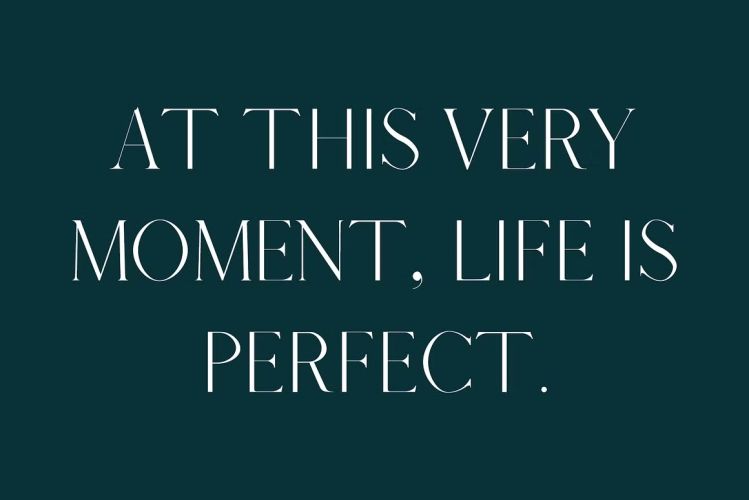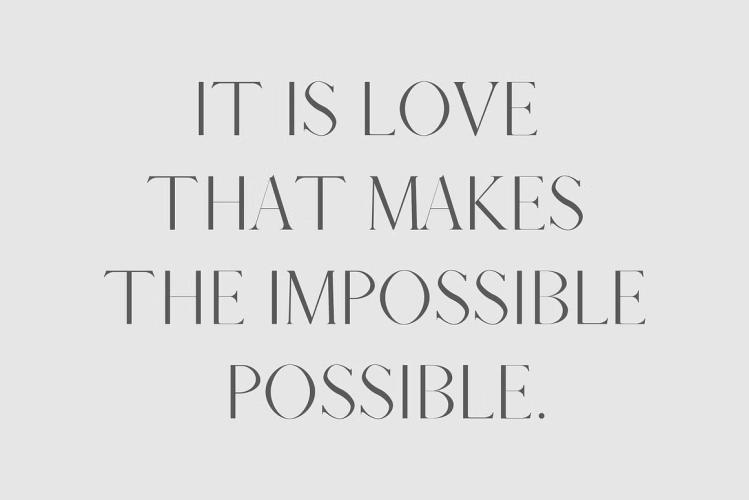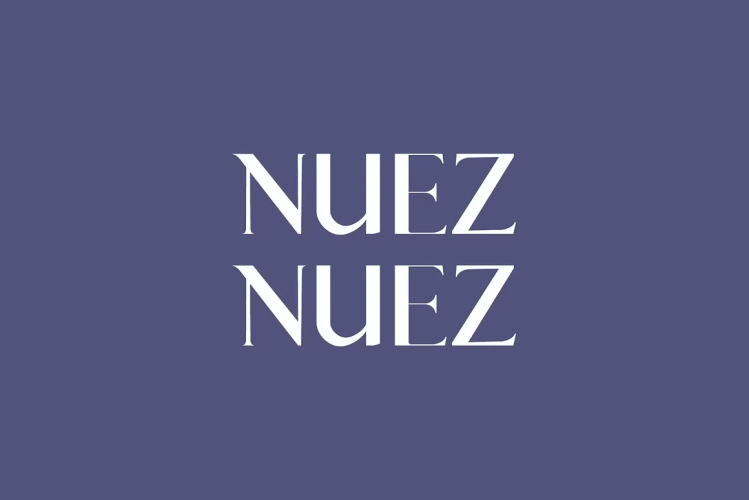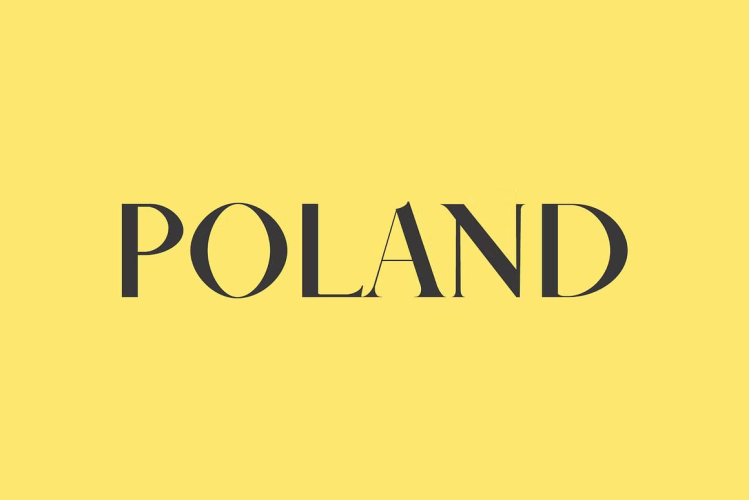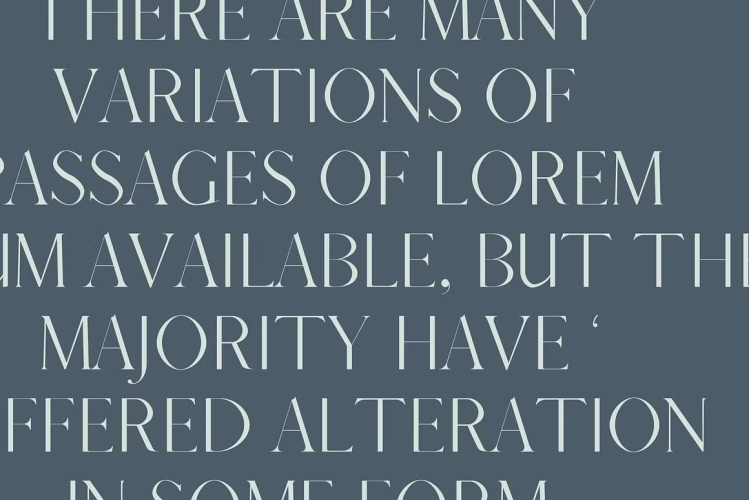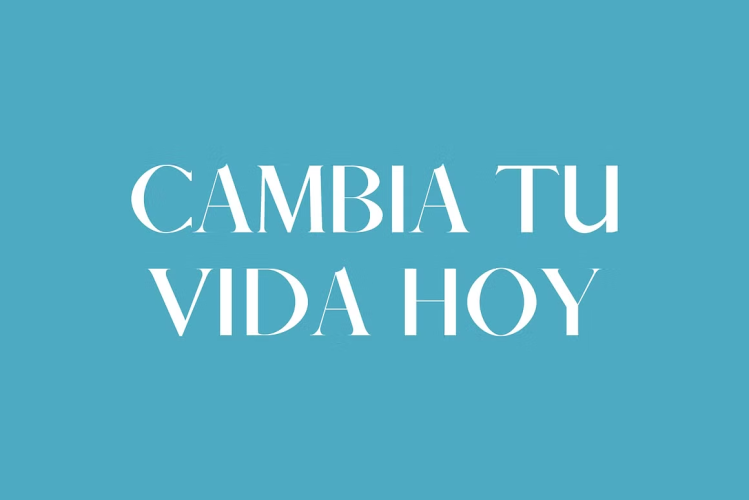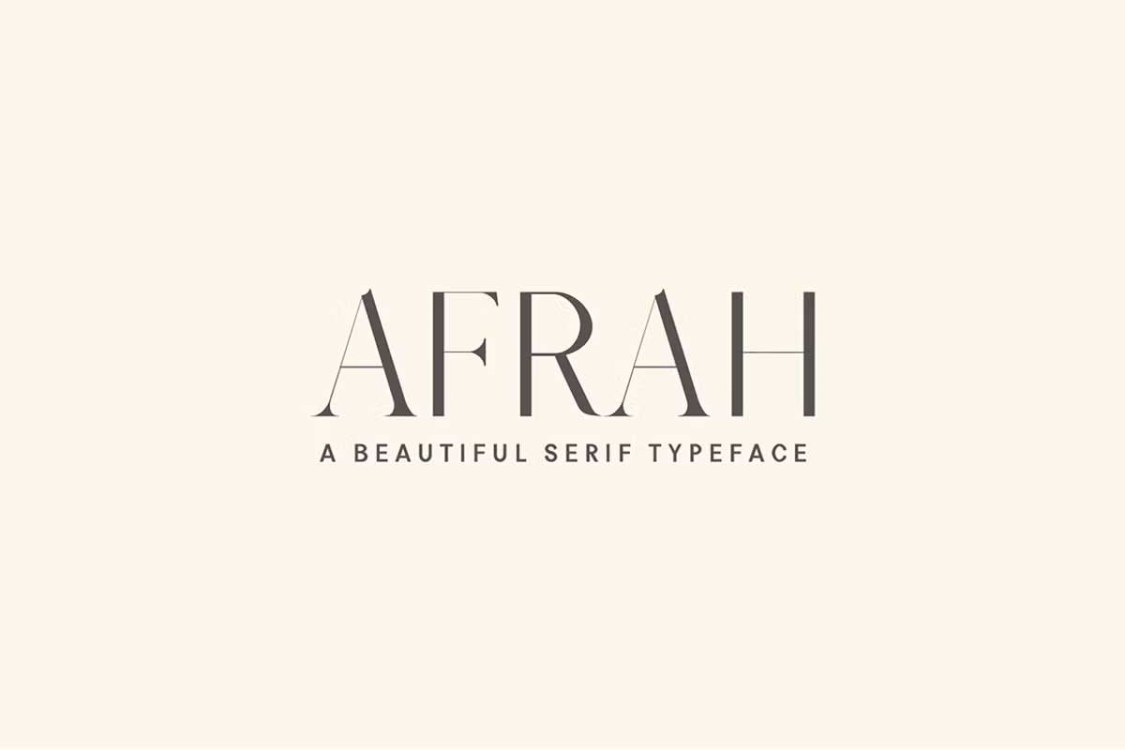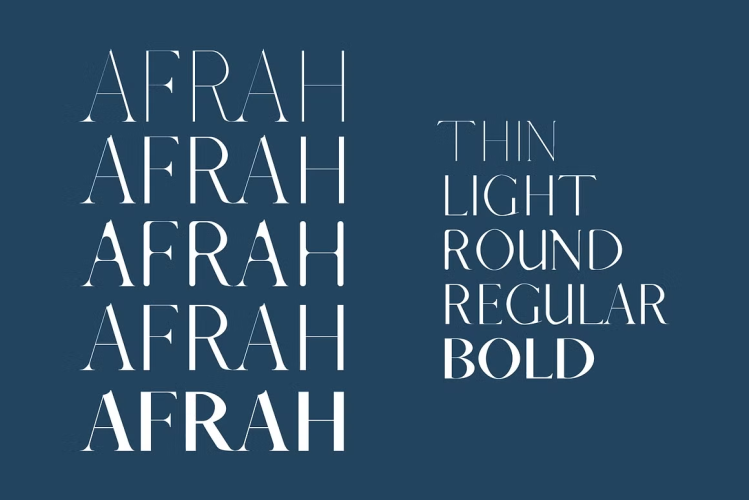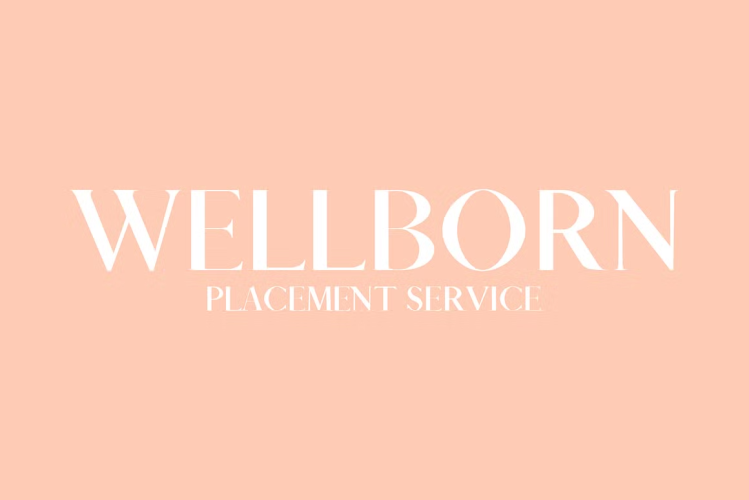
Afrah Font
Afrah Serif Font Family Pack is a beautiful serif font with 5 weights. It includes all basic glyphs with non-English characters. It can be used for headlines, posters, branding, packaging, presentations, logos, quotes, titles, magazine headings, web layouts, advertising, invitations, packaging design, books, and nearly any creative design.
Afrah Font is a Serif Fonts font that brings a professional and versatile look to your projects. Afrah Serif Font Family Pack  is a beautiful serif font with 5 weights.